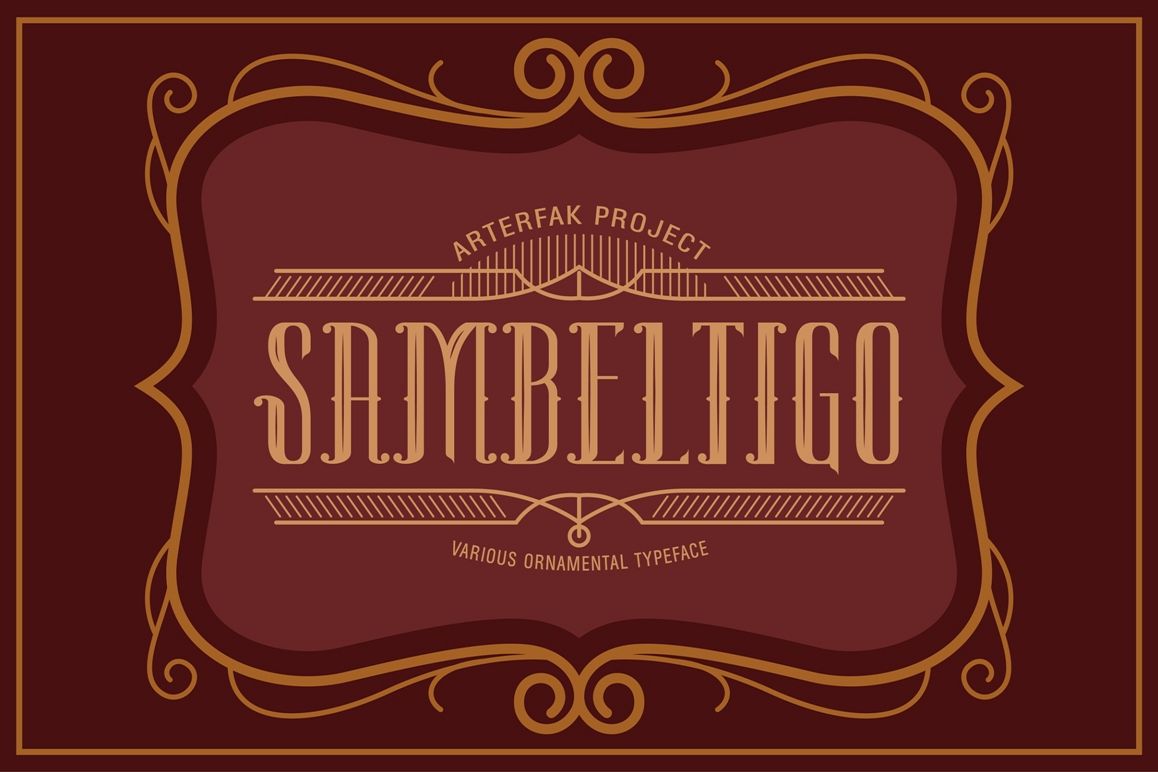
Sambeltigo Typeface
Introducing my new item "Sambeltigo" typeface,
with 5 different styles, looks good for your minimalist design or
vintage. Recommended for your display or headline.
• Regular style
• Inline style
• Ornate style
• OrnateInline style
• Clean style
Typeface featured :
• Standard punctuation
• Some latin glyphs